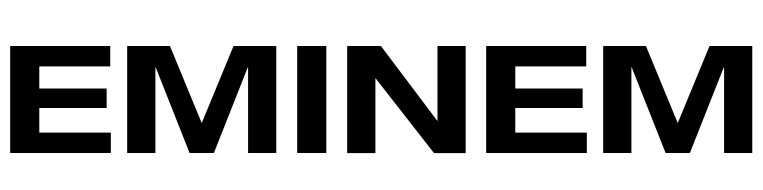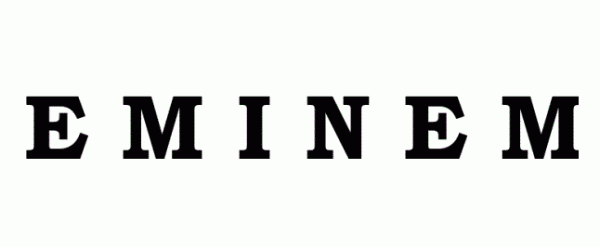
Eminem Font
BandThe first logo for Eminem, the American rapper and record producer, features his stage name in a serif font named Bookman Old Style Bold. It was appeared on his debut album Infinite, released in November 1996.
The second and widely known logo for Eminem, which portrays the logo in a sans-serif font, with a backwards “E”. The font is probably Helvetica Neue Bold Extended. The logo can be seen on albums like The Marshall Mathers LP, The Eminem Show etc.
New Eminem logo introduced in 2013 with the backwards “E” and the base font (Helvetica Neue) remained, appearing on the cover artwork of The Marshall Mathers LP 2.